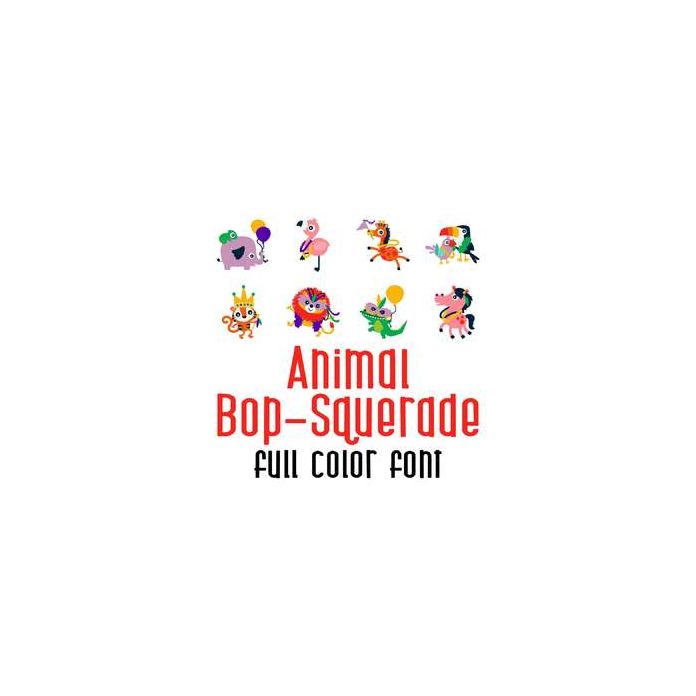
This adorable full color doodlebat font features adorable animals ready to celebrat! Perfect for cards, crafts, gifts, decor, scrap book pages, planner stickers, Mardi Gras and more!